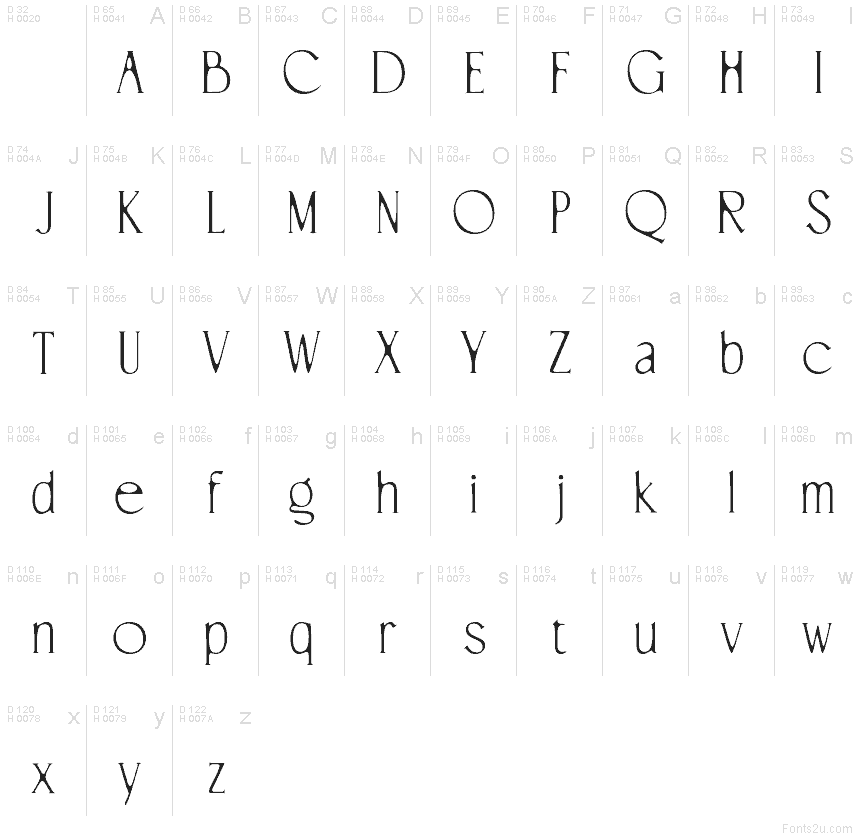
CSRachelDrawn-Regular Demo
CS Rachel Drawn font by Craft Supply Co. is a free hand-drawn serif font. Built on the refined CS Rachel family, it stands out with delicate contrast, carved serifs, and a soft, inky wobble that feels sketched rather than machined. The edges carry a gentle grain that adds warmth without sacrificing readability, giving headlines a tactile, artisanal presence.
Using CS Rachel Drawn, your layouts gain an elegant-yet-organic voice that shines on boutique logos, packaging, editorial titles, book covers, café menus, and event posters. The rhythm feels lively but balanced, so compositions breathe instead of shouting. This free font pairs beautifully with a clean geometric sans for body copy; set CS Rachel Drawn large to let the textured strokes and graceful curves do the talking.
CS Rachel Drawn Demo